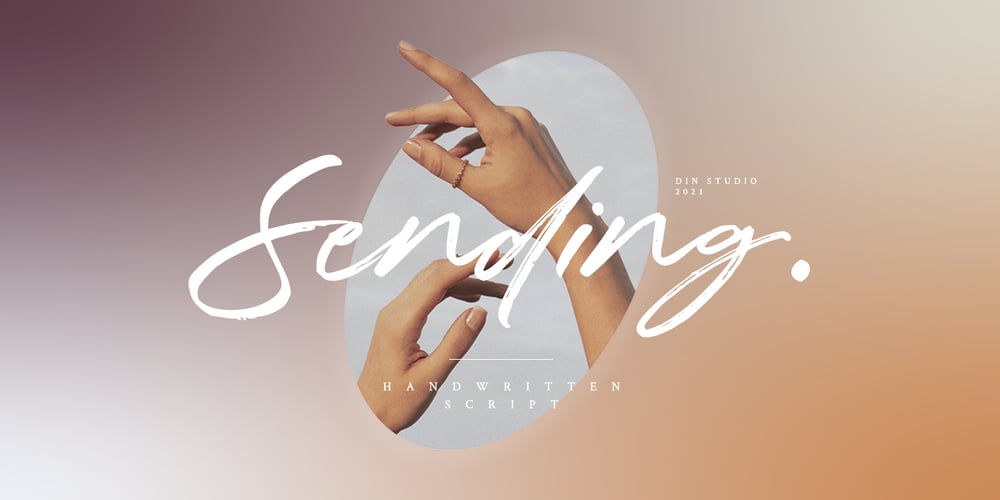
Sending
Sending font
Sending Font Family was designed by Donis Miftahudin and published by Din Studio. Sending contains 1 styles and family package options. Does your project need something that makes people going WOW? Have you thought about how you can add that touch of something to your branding and projects? What if we told you that we have a solution to maximize your designs?Introducing Sending-A Handwritten Brush Font This font can bring your projector branding to another level. It encapsulates the essence of simplicity but elegance. With elegance and passion edged into every curve and twist of this brush font – you’ll be sure to boost your sales and make the best impressions. Use it for headings, logos, business cards, printed quotes, invitations of all sorts, cards, packaging, and your website or social media branding. Sending includes Multilingual Options to make your branding globally acceptable. Features: Beautiful Ligatures Multilingual Support PUA Encoded Numerals and Punctuation Thank you for downloading premium fonts from Din Studio